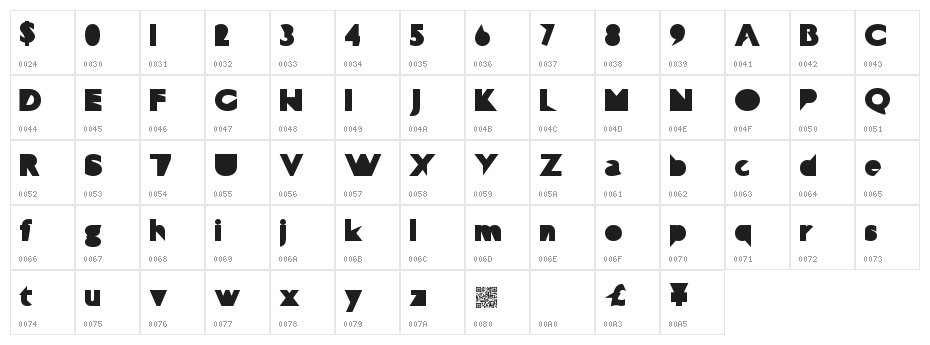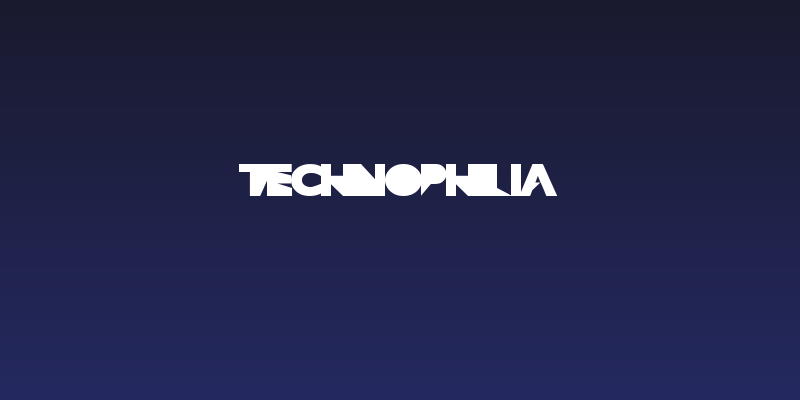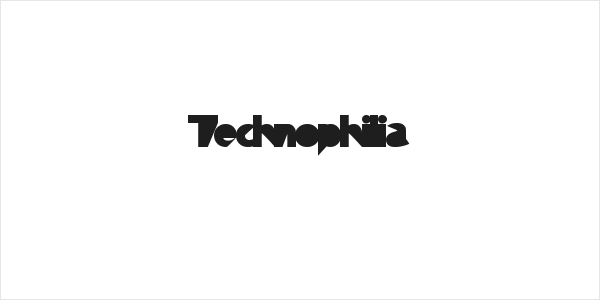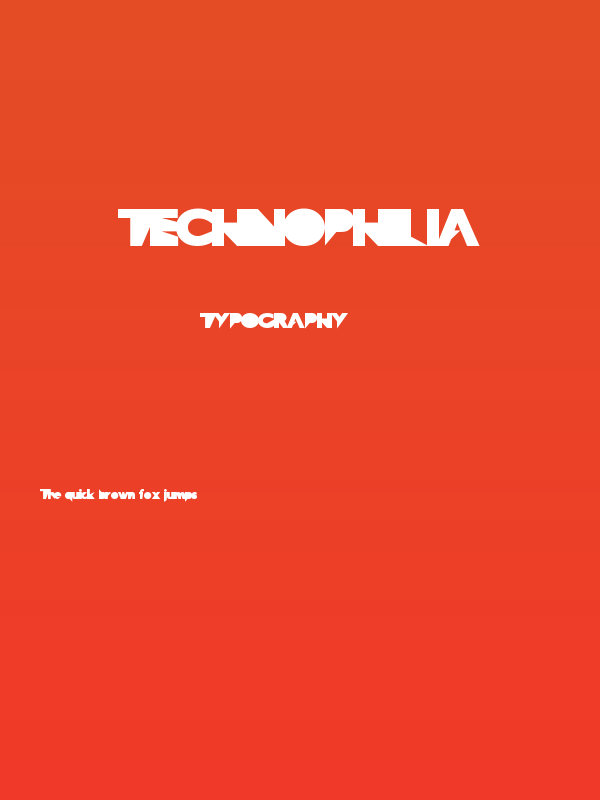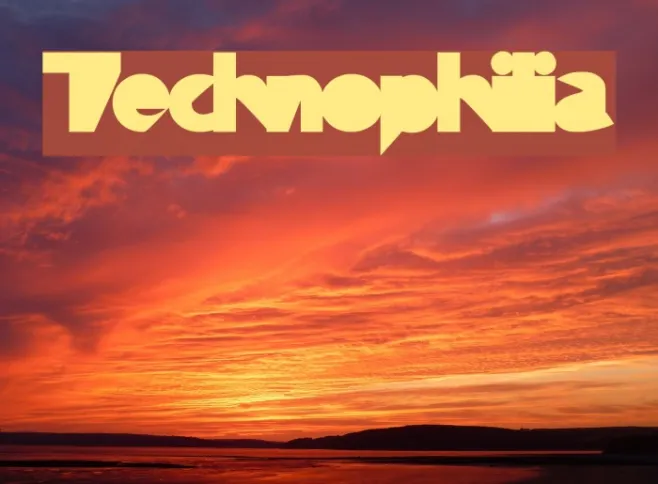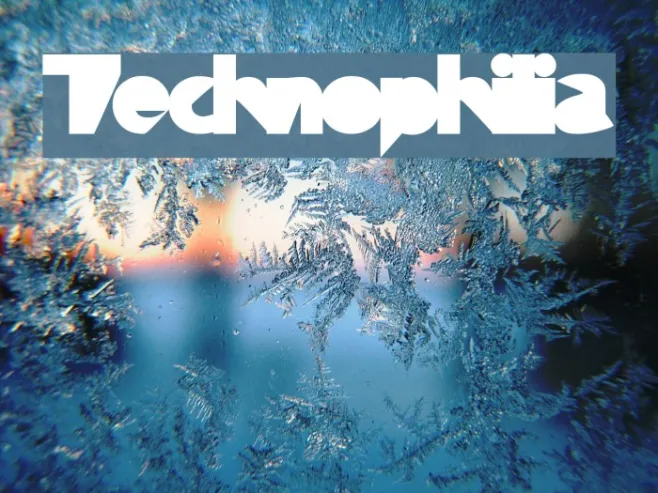
Technophilia Font
Technophilia Description
This font features a bold and futuristic design with sharp angles and geometric shapes. The uppercase letters are characterized by their strong, solid forms, while the lowercase letters maintain a consistent style with slightly softer edges. The numbers are equally bold, matching the overall aesthetic. Special characters are designed with the same angular and dynamic style, making them stand out. The font's unique appearance makes it suitable for projects that require a modern and edgy look.
TECHNOPHILIA UPPERCASE
TECHNOPHILIA LOWERCASE
TECHNOPHILIA OTHER CHARS
| Proposed Projects | Ideal for technology branding, sci-fi posters, video game titles, and modern advertising. |